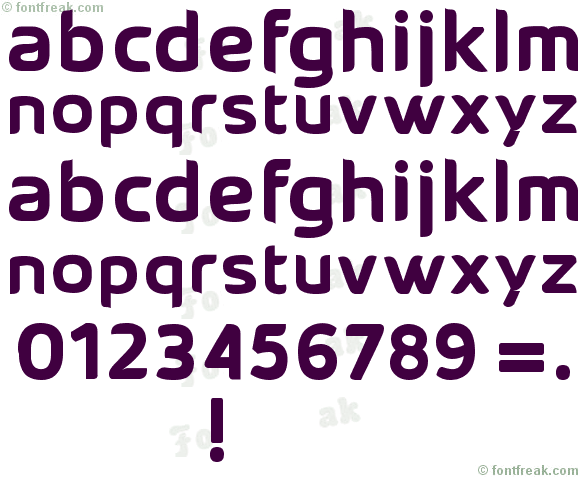
ATO Salutino
The ATO Salutino font, created by Alvaro Thomaz, is a contemporary sans-serif typeface that combines simplicity with a touch of elegance. Its clean lines and rounded letterforms give it a friendly and approachable aesthetic, making it suitable for a variety of design applications. The font features a medium stroke weight with minimal contrast, ensuring excellent legibility in both large and small sizes. The balanced spacing between characters enhances its readability, making it a versatile choice for many projects.
This font is ideal for several specific use cases. Graphic designers may find it particularly effective for branding and logo design, where its modern feel can help communicate a fresh identity. ATO Salutino is also well-suited for wedding invitations, lending a touch of grace and sophistication to special occasions. Additionally, small business owners can use this font for restaurant menus or promotional materials, as its inviting style can attract customers. Content creators looking to enhance their social media graphics will appreciate its clean look, which stands out without overwhelming the viewer.
The target audience for ATO Salutino includes graphic designers, small business owners, and content creators who seek a versatile and stylish typeface. Its freeware license makes it easily accessible, allowing users to experiment and incorporate it into their projects without cost.
What sets the ATO Salutino font apart is its balance between modernity and warmth. It captures attention while maintaining a level of professionalism, making it suitable for both personal and commercial use. Whether you are looking to elevate your designs or create engaging content, the ATO Salutino font free download offers an excellent option for your typographic needs.